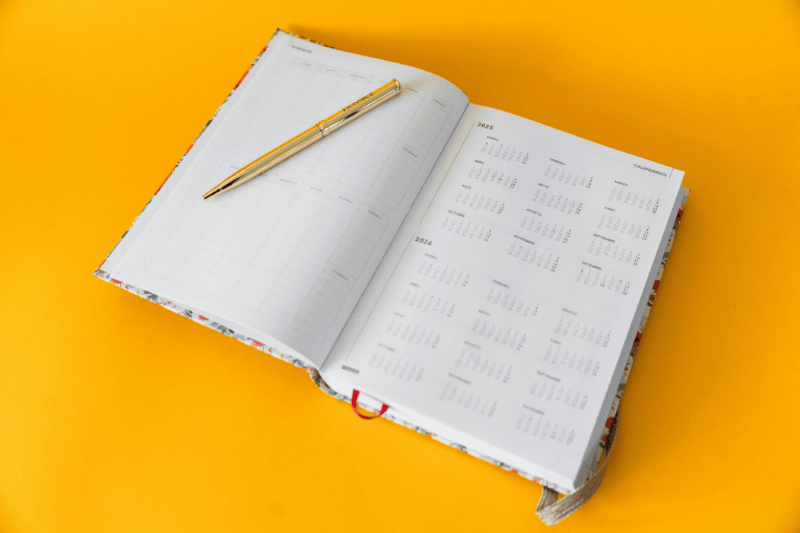
Exam Season Planners Customized with Clean Sans-Serif Fonts
1. Exam season can feel like juggling flaming torches while riding a unicycle. You can keep it together, but only if your system is simple enough to follow when you’re tired. That’s why daily exam season planners—with readable, clean sans-serif fonts for the layout—are more than “pretty stationery.” It’s a practical tool that keeps your brain calm and your tasks clear.
In this article, I’ll show you how to build a planner that looks minimal, feels light, and still holds everything you need: deadlines, topics, practice papers, breaks, and the tiny-but-important stuff like meals and sleep. Because yes, sleep is part of the plan.
Why a Daily Exam Season Planner Works Better Than “Just a To-Do List”
clean sans-serif fonts
A daily planner helps because it answers the questions your brain keeps asking:
• What should I focus on today?
• When will I do it?
• How much is realistic?
• What’s the next step if I get stuck?
Also, exam work isn’t only “study chapter 4.” It’s revision, practice, reviewing mistakes, and repeating. A daily planner turns that cycle into something visible. And when you can see the plan, it feels less like a storm and more like a route on a map.
Plus, daily planning stops the classic trap: overplanning the week and underdoing the day. Weekly plans are great, but daily plans are where the results happen.
Designing a Clean Daily Layout That Actually Gets Used
A planner is only helpful if you want to open it. If the page is crowded, your brain may avoid it—especially when you’re stressed. Clean design isn’t just an aesthetic choice; it’s emotional support in paper form.
Here’s what “clean” usually means in practice:
• Generous white space (so your eyes can breathe)
• Clear sections (so you don’t hunt for information)
• Minimal lines and boxes (so it doesn’t feel like a form)
• One main font family (so it stays consistent and calm)
A strong daily page usually includes:
• Date + exam countdown
• Today’s focus (1–3 priorities)
• Time blocks (study sessions + breaks)
• Quick task list (small admin items)
• Notes / mistakes to review
• A short “done” reflection (to build momentum)
The “Top 3 + Time Blocks” Formula
If you steal only one idea, steal this.
Top 3 priorities are your anchor. They keep your day from becoming a messy buffet of random tasks. Then, time blocks give those priorities a home.
Try this daily structure:
Header
• Date:
• Exams coming up:
• Energy today (Low / Medium / High):
Top 3 (must-do)
Main revision topic: ______
Practice set: ______
Review task: ______
Time Blocks
• Block 1 (45–90 min):
• Break (10–20 min):
• Block 2 (45–90 min):
• Block 3 (optional):
Quick Tasks (nice-to-do)
•  ______
Mistakes to Fix Tomorrow
______
Why does this work? Because it’s like packing a small suitcase instead of dragging your whole closet. You choose what matters, and you leave the rest.
Customizing Your Planner for Your Subjects, Deadlines, and Energy Levels
clean sans-serif fonts
A good exam planner should feel like it was made for your life, not a “perfect student” on the internet. Customization is where the magic happens—without turning your planner into a complicated monster.
Start by adding these customization layers:
1) Subject sections (lightweight, not heavy)
Instead of giving every subject a full page daily, keep it simple:
• A tiny checkbox row: Math ☐ Bio ☐ History ☐ English ☐
• Or a small “Subject Focus” box: Main subject today: ____
2) Exam-first planning
Put the nearest exam at the top of the page. Urgency creates clarity. You can add:
• “Days left: ___”
• “Topics left: ___”
• “Practice papers left: ___”
3) Session types
Not all study is equal. Your planner should remind you to mix:
• Learn (notes/video)
• Recall (flashcards, blurting)
• Practice (questions)
• Review (mistakes log)
You can include a small label beside each time block: L / R / P / Rev.
4) Energy-based planning
Some days you’re a laser. Other days you’re a sleepy potato. Plan accordingly:
• High energy: practice papers, timed sets, hard topics
• Medium energy: mixed recall + shorter practice
• Low energy: light review, flashcards, summary sheets, organizing notes
This is how you stay consistent without burning out.